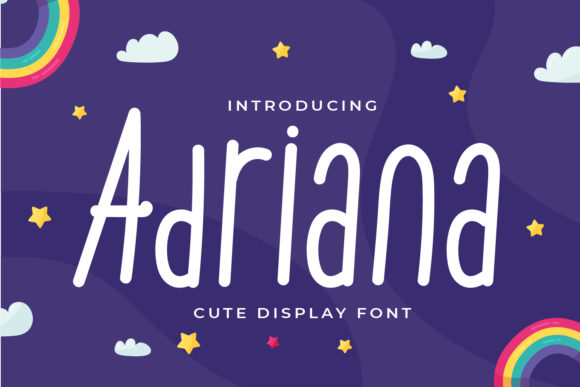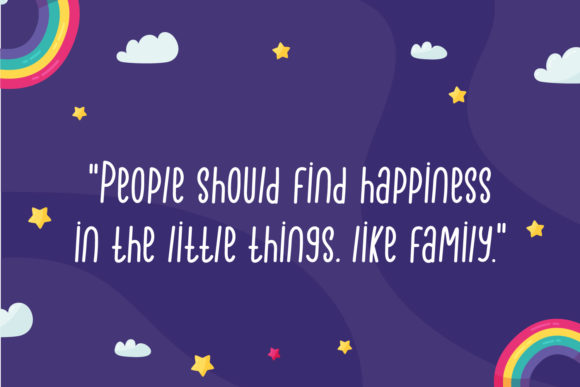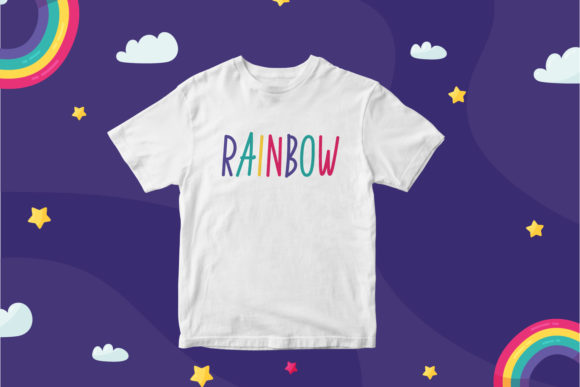
About Adriana Font
Adriana is a charming and tall handwritten font that adds a touch of cuteness and personality to any crafting project. With its unique and playful letterforms, it brings a sense of handcrafted charm and individuality to your designs.
Whether you’re working on DIY projects, scrapbooking, card making, or any other crafting endeavor, Adriana is a perfect choice to add a personalized touch. Its tall and slender letterforms create an elegant and whimsical appearance, making it suitable for a wide range of creative applications.
The versatility of Adriana allows it to be used in various crafting projects. From custom labels and tags to personalized gift items, this font can enhance the overall look and feel of your creations. Its handwritten style adds a sense of warmth and authenticity, giving your crafts a unique and personal touch.
Adriana’s legible letterforms ensure that your text is easily readable, even in smaller sizes. This makes it suitable for a variety of crafting materials, including paper, fabric, wood, and more. Its cute and tall design also makes it a great choice for creating eye-catching headlines and titles.
In addition to crafting projects, Adriana can also be used for digital designs such as social media graphics, blog headers, and website banners. Its playful and personalized look will add a touch of creativity and uniqueness to your online presence.
So, unleash your creativity and let Adriana bring a personalized and charming touch to your crafting projects. With this font, you can create designs that stand out and reflect your own individual style.